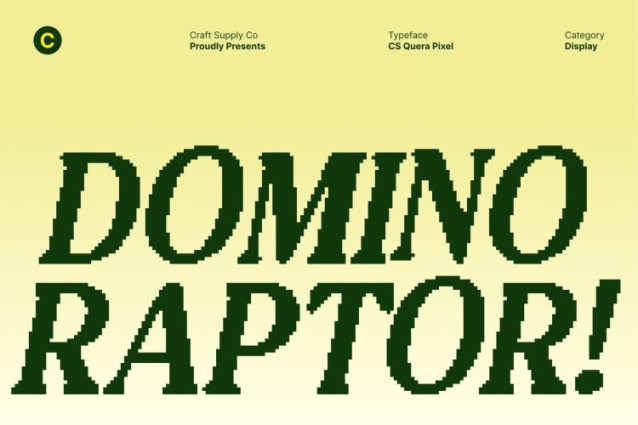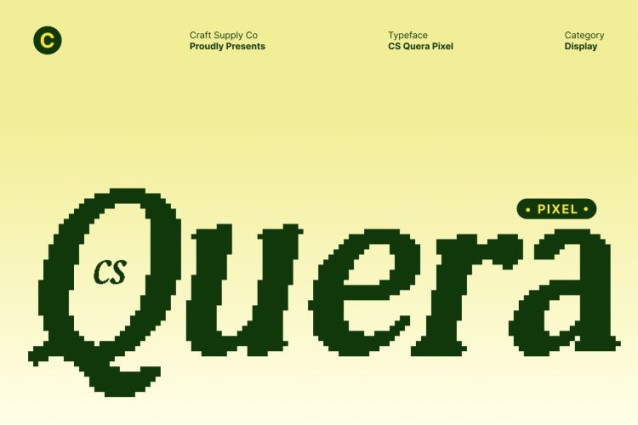
CS Quera Pixel Font
CS Quera Pixel Font This is a bold display font rebuilt with a pixel-based structure to deliver instant visual impact. Its thick, confident letterforms are translated into strong digital blocks, creating a powerful presence that feels solid, assertive, and perfectly suited for screen-based design.
Retro Influence with Digital Nostalgia
The pixel construction brings classic retro technology to life echoing early computer graphics, arcade screens, and vintage digital displays. This nostalgic character is balanced with modern boldness, allowing the font to feel timeless yet relevant in contemporary creative projects.
Strong Readability with Eye-Catching Structure
Despite its heavy weight and pixel form, this font remains clear and highly readable. The carefully aligned grid and structured proportions ensure each character stands out sharply, making it ideal for headlines, posters, and branding that need maximum visibility.
Perfect for Posters, Headlines, and Retro-Tech Branding
This font excels in posters, bold headlines, logos, gaming visuals, packaging, and digital branding. Its blend of retro charm and modern strength makes it especially effective for designs inspired by old technology, pixel art, and digital nostalgia where impact and character matter most.